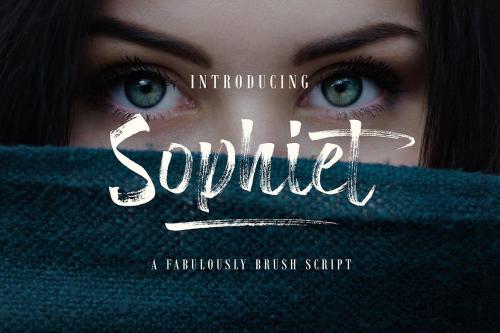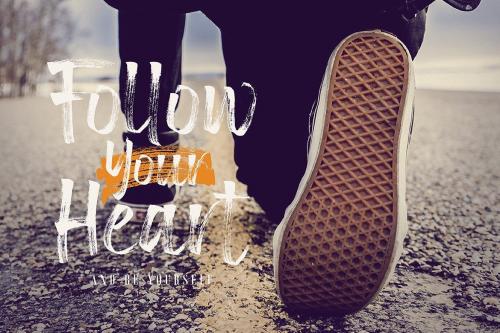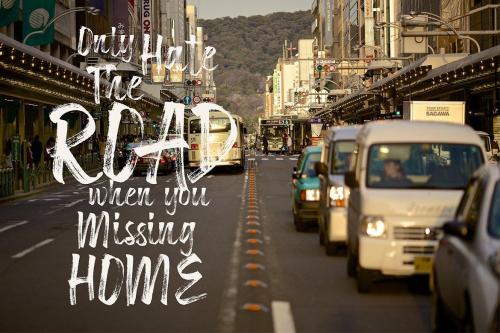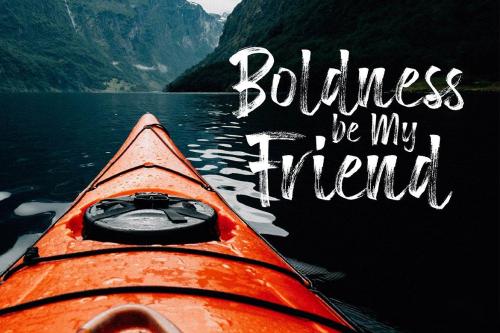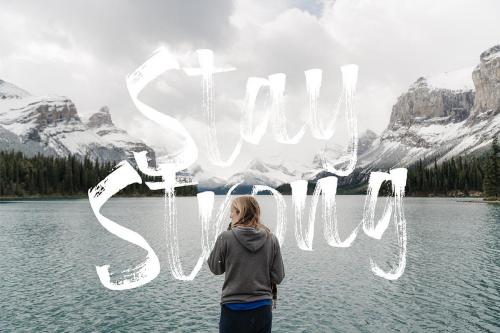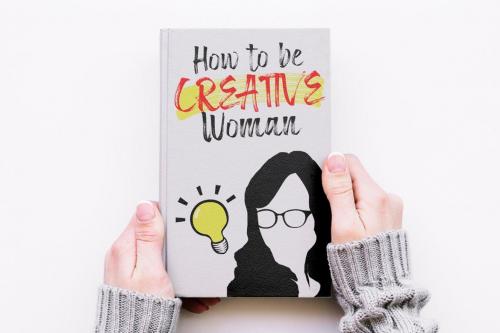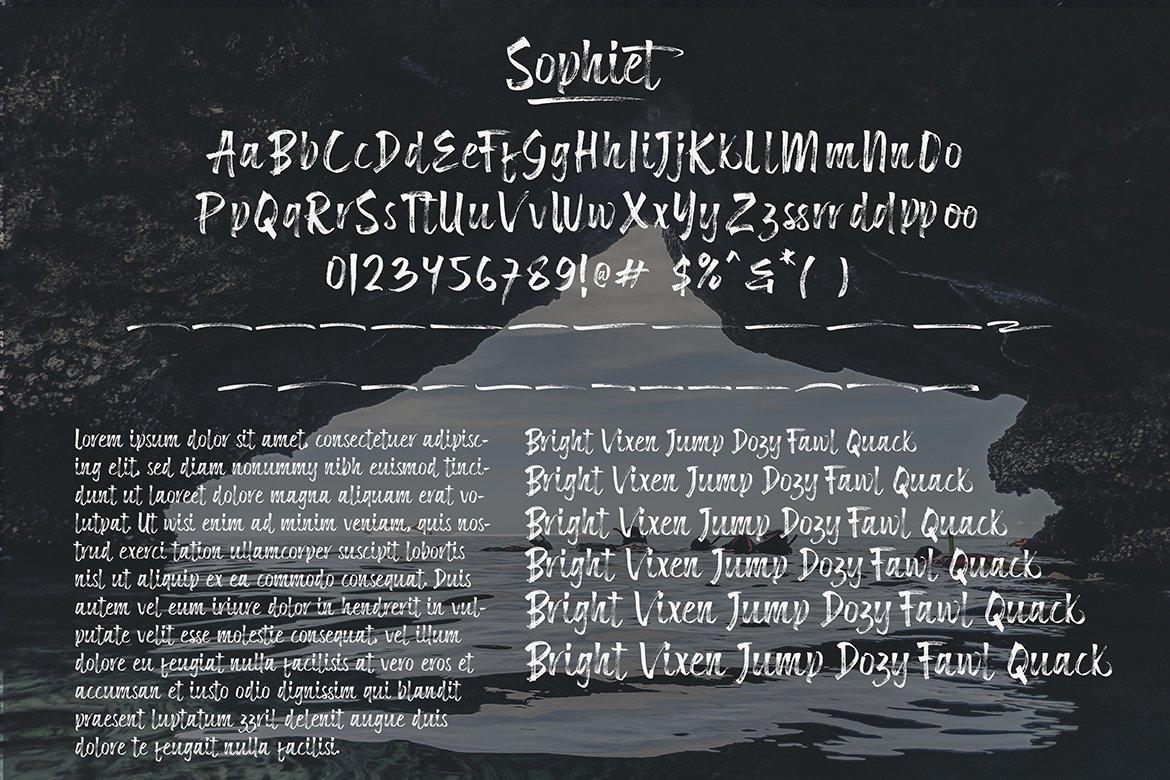
Sophiet is a stunning brush font with a bold feel. It will add an authentic touch to any creative project!
This font is perfect for design purposes such as logo design, t-shirt, heading, magazine, newspaper, website, to design quotations, posters, business cards, and others.